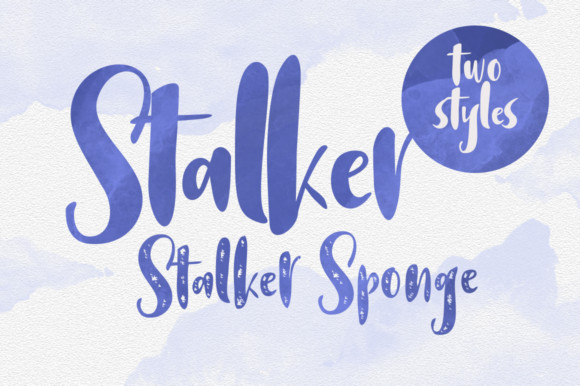
Stalker Font
Stalker is a bold and modern display font, carefully handcrafted to become a true favorite. This font will look outstanding in any context, whether it’s being used on busy backgrounds or as a standalone headline!